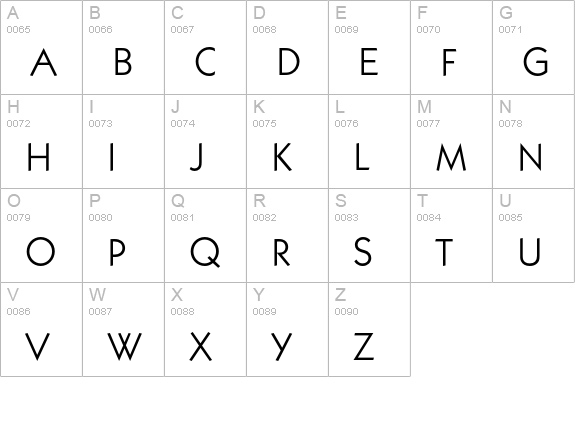
KabelEF-Book Font Details
KabelEF-Book is a comfortable, highly readable variant in the KabelEF typeface family \xE2\x80\x94 well suited to long-form body text, articles, and editorial content.
KabelEF-Book is a stunning font that beautifully captures the essence of modernity and elegance. This versatile typeface is perfect for a wide range of design projects, from branding and advertising to editorial and web design. With its clean lines and balanced letterforms, KabelEF-Book exudes a sense of sophistication and professionalism. One of the most appealing aspects of KabelEF-Book is that it is available for free. That's right, you heard it correctly – this incredible font can be downloaded at absolutely no cost from FontsMarket.com. This means that you can add a touch of class to your designs without having to dig deep into your pockets. The creators of KabelEF-Book believe that great design should be accessible to all, and that is why they have made this font freely available. Whether you are a professional designer or a hobbyist, you can now enhance your creations with the timeless beauty of KabelEF-Book, without any financial constraints. Featuring a wide range of characters, including uppercase and lowercase letters, numerals, punctuation, and special symbols, KabelEF-Book gives you the freedom to express yourself creatively. Its legibility and readability make it perfect for both headings and body text, ensuring that your message is effectively conveyed to your audience. So why wait? Download KabelEF-Book today from FontsMarket.com and elevate your designs to new heights. Embrace the power of this remarkable font and let it transform your projects into works of art. With KabelEF-Book, the possibilities are endless, and the best part is – it won't cost you a dime.